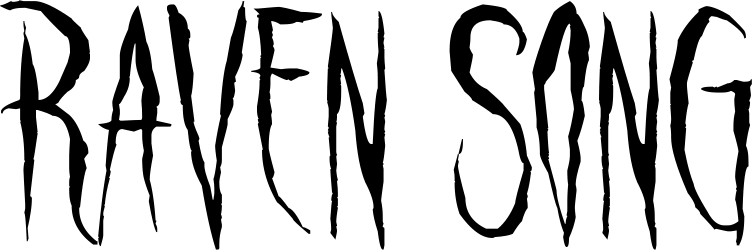
Raven Song Font
Raven Song font has a scary theme that you usually see in vampire and zombie posters and is not limited to this. You can use this sharp horror font to design Halloween flyers and festival parties. Moreover, this rough scratched font does not cover lowercase letters, and we recommend that you use this font in large sizes and titles.